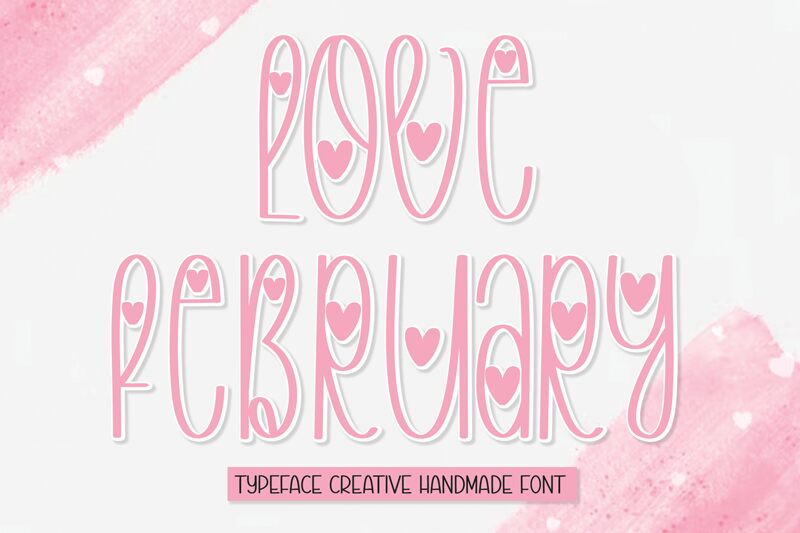
Love February
Love February font by Scratchones is a light whimsical typeface with a vertically emphasized design. The decorative design is further complemented by unique artistic elements and heart motifs that add to the valentine theme of the font. The free condensed font offers an expressive and modern approach for either personal or commercial use.
Love February font combines handwriting, calligraphy, and hand-drawn elements in its style to match contemporary trends in designs for posters, greeting cards, headers, social media graphics, stationery projects, printables, business cards, invitations etc.